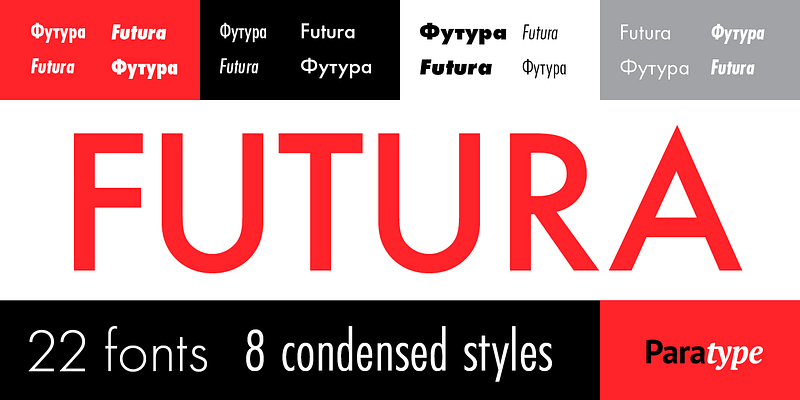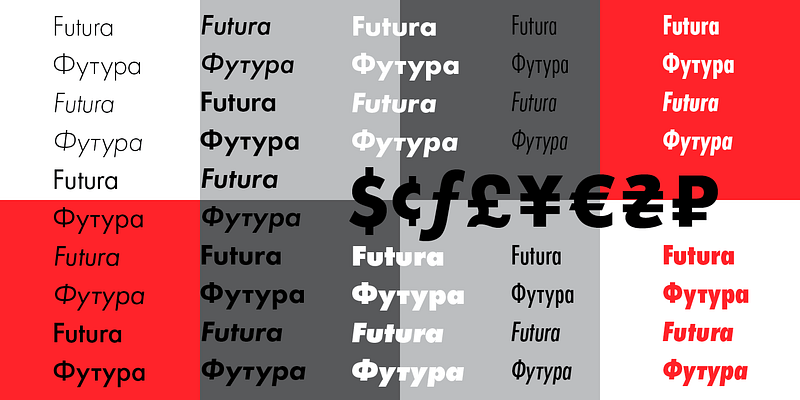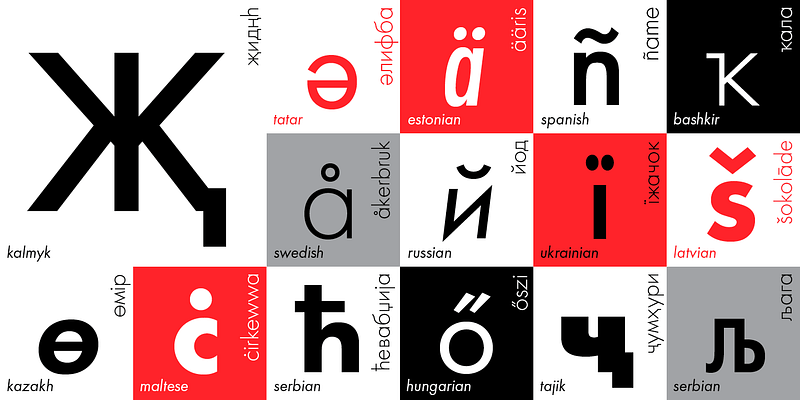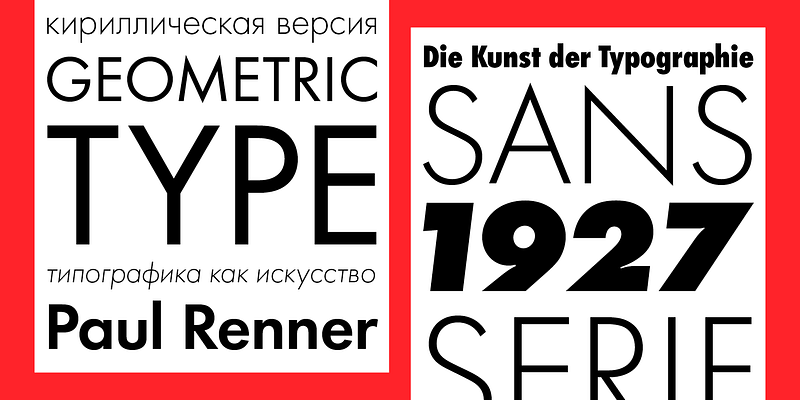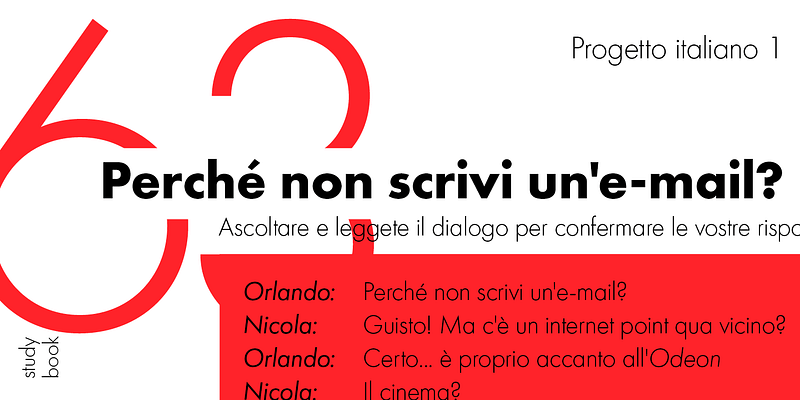
Futura Font
The Futura Font is perfect for modernist architecture signage, avant-garde art exhibitions, minimalist brand identities, progressive design projects, contemporary museum displays, innovative technology companies, clean corporate communications, futuristic product packaging, sophisticated editorial layouts, and timeless graphic design applications.
What makes the Futura Font so exciting is its revolutionary geometric perfection and timeless modernist principles that have defined progressive design for nearly a century, creating an unmatched legacy of typographic excellence and forward-thinking aesthetics. This iconic typeface features pure geometric construction, mathematical precision, and bauhaus-inspired design philosophy that establishes an unmistakable modernist identity perfect for brands seeking to communicate innovation, clarity, and timeless design leadership. The font's futuristic personality and modernist heritage make it an exceptional choice for progressive organizations seeking to project avant-garde thinking, design excellence, and enduring contemporary relevance with authentic modernist credibility.
The Futura Font family includes comprehensive geometric variations, featuring Light, Book, Medium, Bold, and Extra Bold weights, plus condensed and extended versions with oblique styles. Each variation maintains the signature geometric appeal while offering different levels of visual impact and modernist expression, providing designers with complete flexibility for creating sophisticated modernist hierarchies and progressive design systems that honor bauhaus principles.
The precise geometric engineering of Futura Font demonstrates master-level modernist typography craftsmanship, with each character based on perfect geometric forms, mathematical proportions, and bauhaus design principles that enhance its timeless modernist appeal. The font's comprehensive character set includes international language support, modernist punctuation, geometric symbols, and progressive design elements, ensuring complete functionality for global modernist projects and international avant-garde communications.
Expertly engineered for both digital and print modernist applications, this legendary font maintains perfect geometric clarity and progressive presence across all media formats and contemporary contexts. From large-scale architectural installations to detailed modernist publications, Futura Font performs exceptionally while preserving its distinctive geometric character and authentic modernist sophistication.